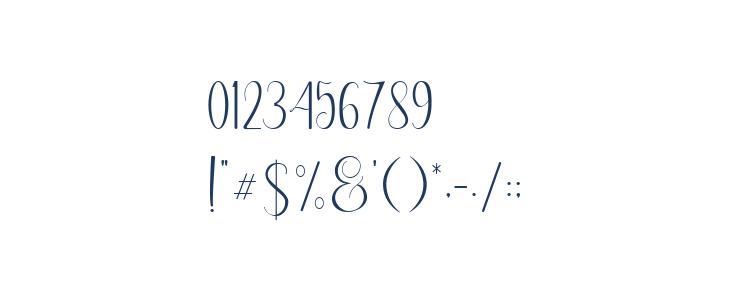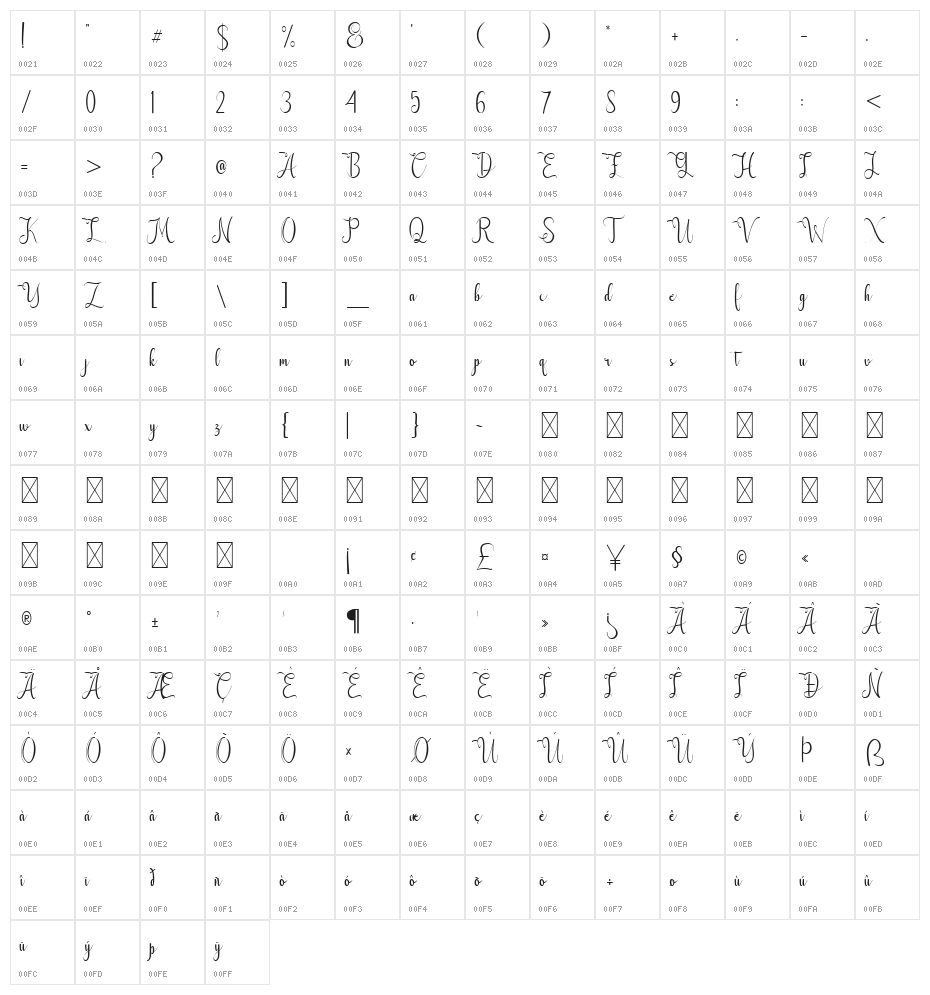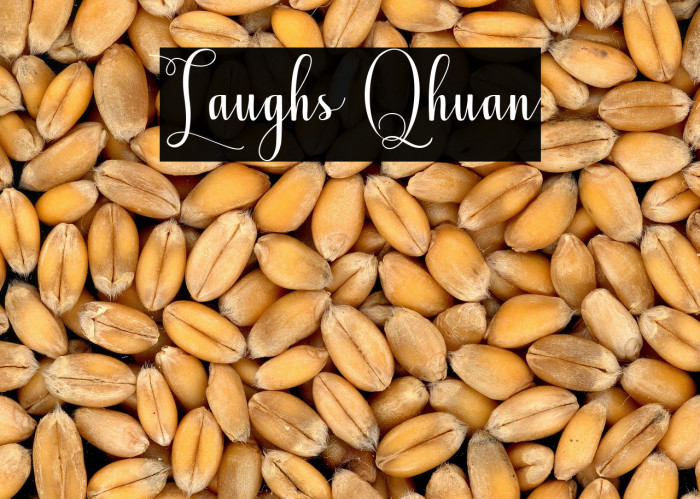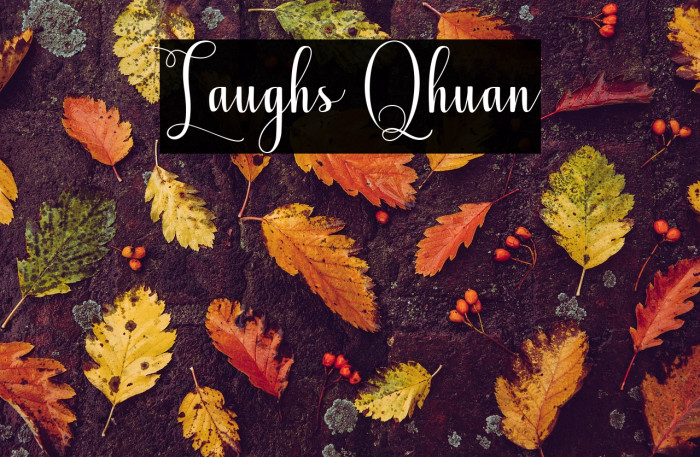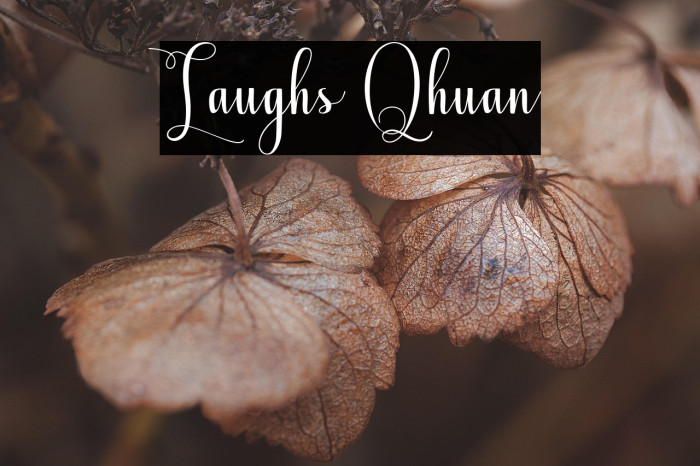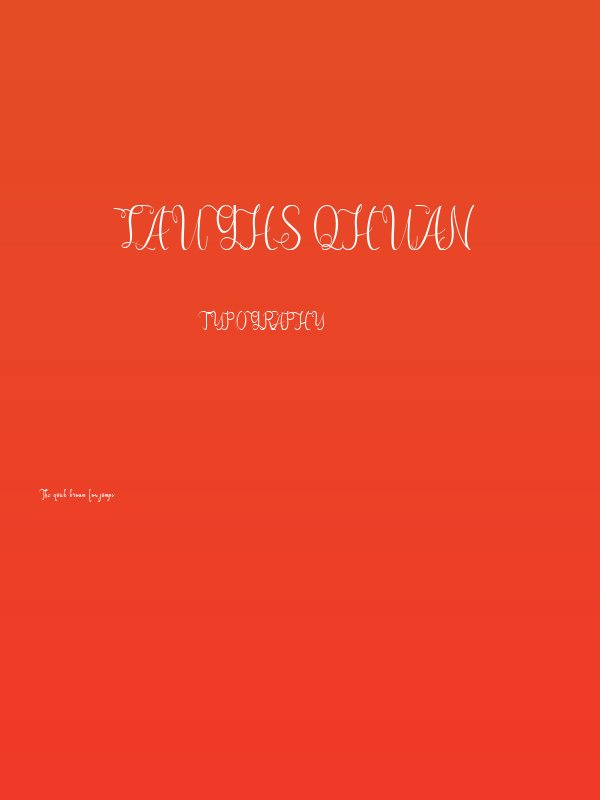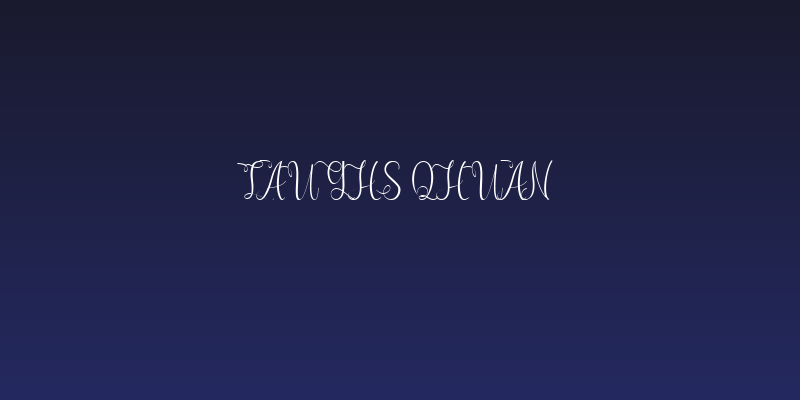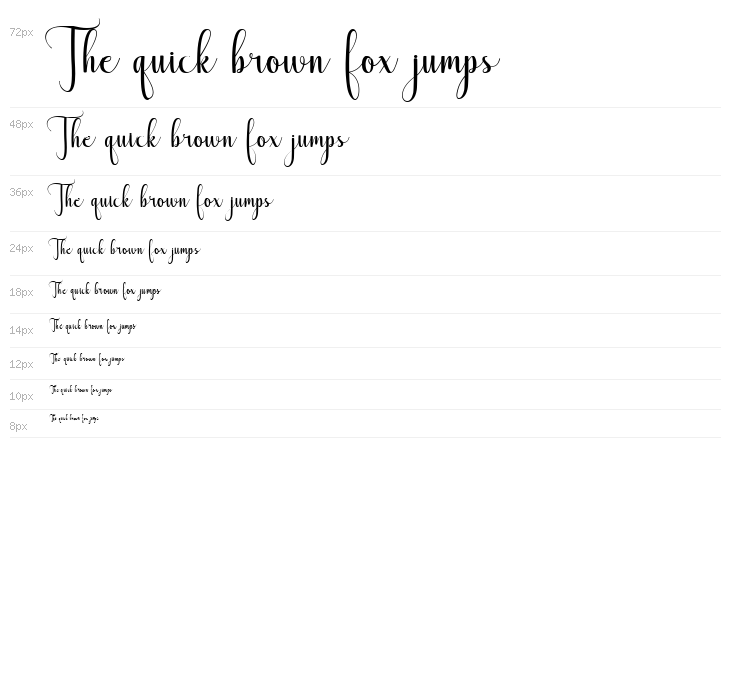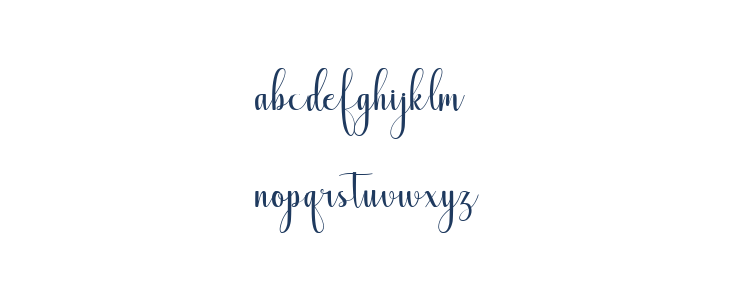
Laughs Qhuan Font
This elegant script font features an intricate design with flowing, interconnected lines that create a sense of movement and grace. The uppercase letters are adorned with decorative swirls and loops, adding a touch of sophistication and flair. The lowercase letters maintain a consistent style, with smooth curves and a slightly more restrained embellishment compared to the uppercase. The numerals are clear and legible, maintaining the overall aesthetic of the font. Special characters are thoughtfully designed to match the ornate style, making this font suitable for a variety of creative applications.
Use CaseLogos, Invitations, Decorative text
Proposed ProjectsIdeal for wedding invitations, elegant branding, greeting cards, and decorative signage.